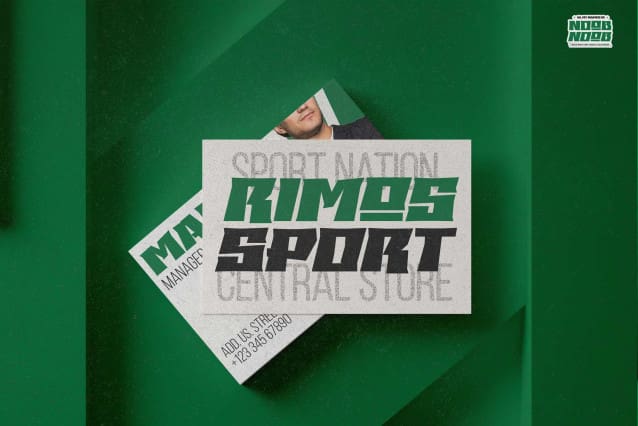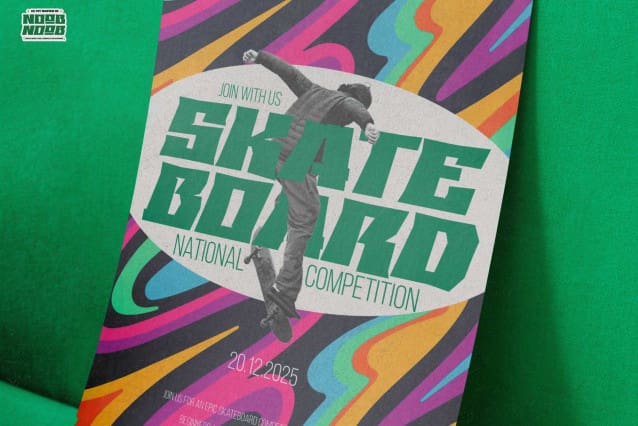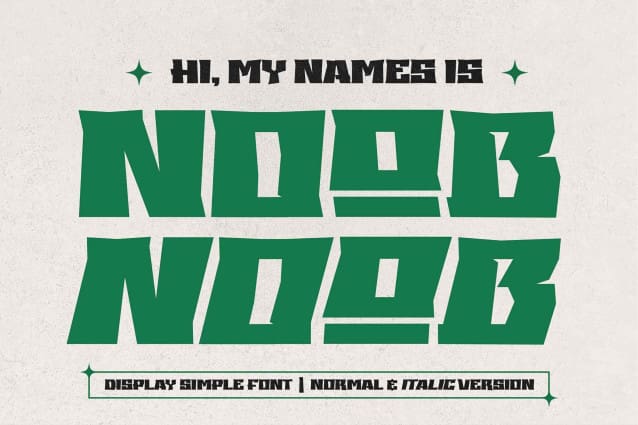
Noob Display Font
Noob Display Font, This is a Display Simple Font Normal & Italic Version, this is a slab font with modern testure, this font is perfect for making a strong statement in your designs.